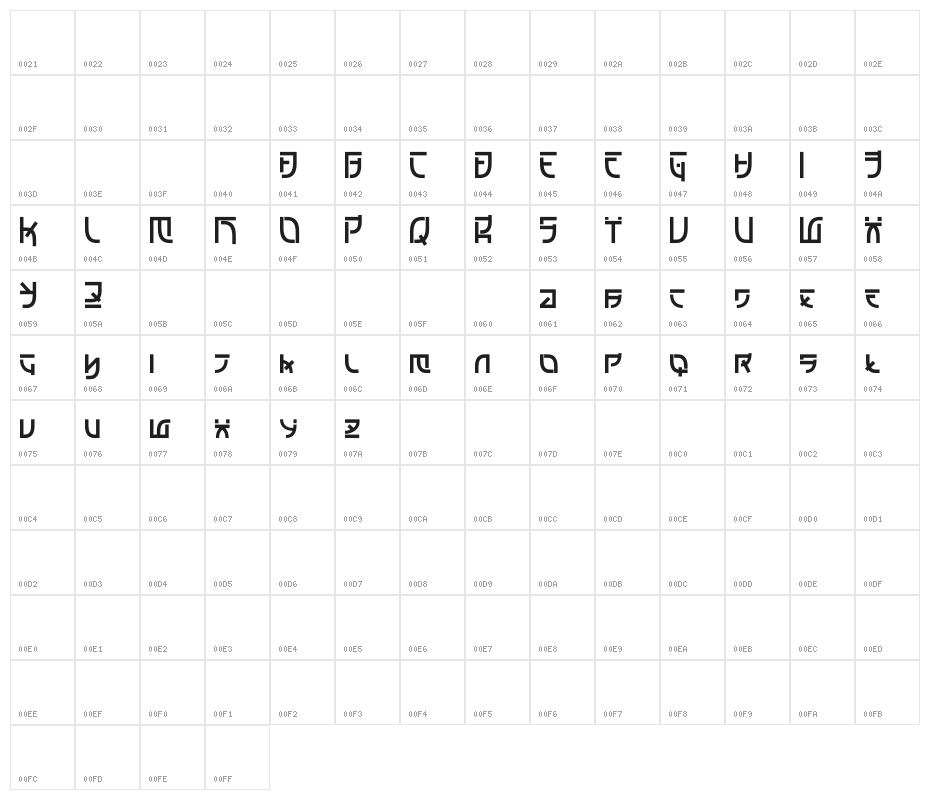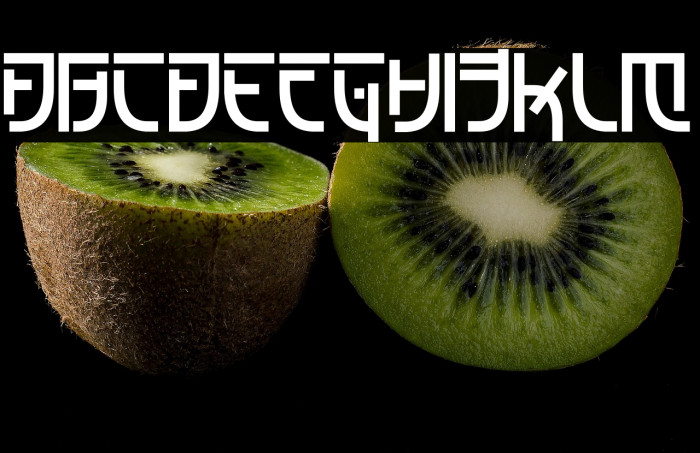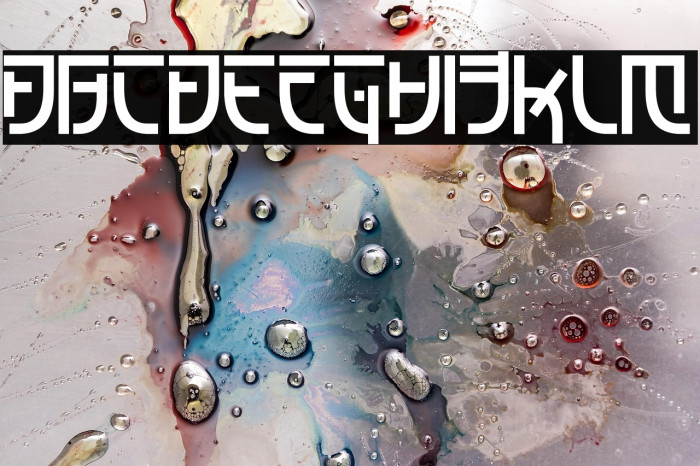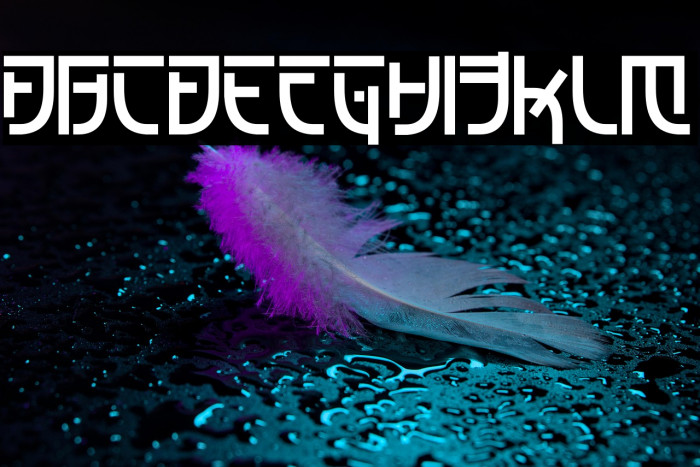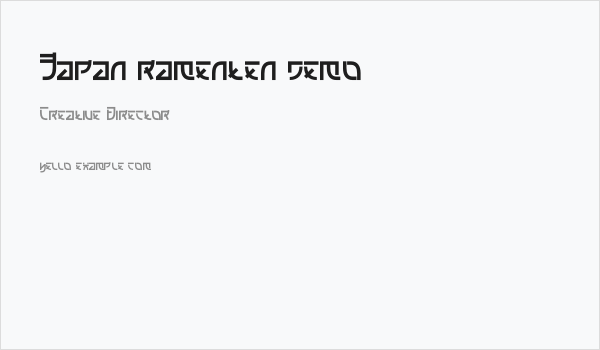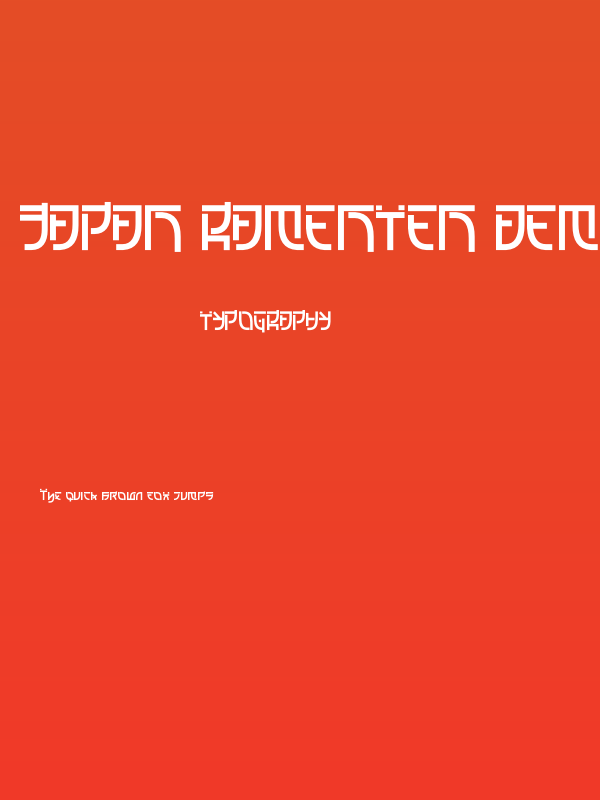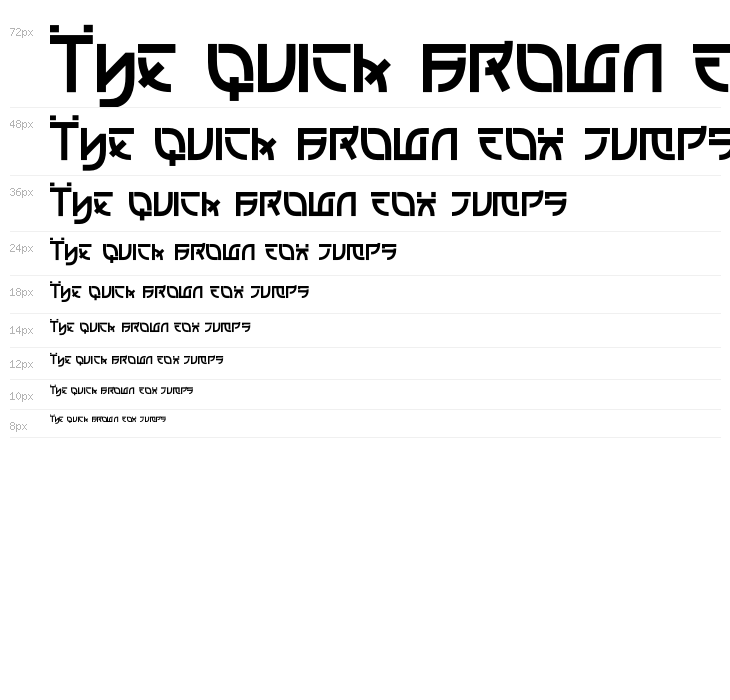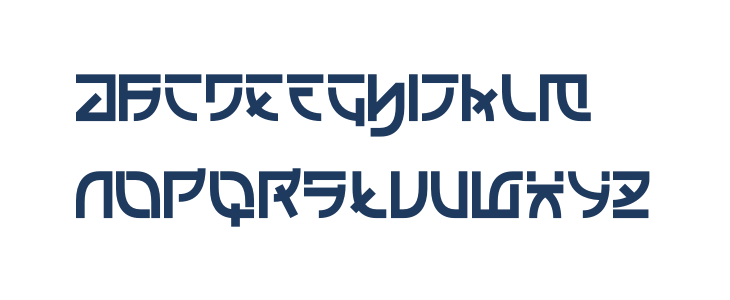
Japan ramenten demo Font
Japan ramenten demo Description
This font features a bold, geometric design with a distinctly modern and futuristic aesthetic. The characters are constructed with thick, angular strokes that create a sense of symmetry and balance. The use of sharp angles and straight lines gives it a mechanical feel, while the consistent stroke width across all characters adds to its uniformity. The font's unique style is reminiscent of digital or sci-fi themes, making it stand out in any design. It is highly legible despite its unconventional shapes, and the spacing between characters is tight, enhancing its compact appearance.
| Use Case | Logos, Headlines |
| Proposed Projects | Ideal for tech-related branding, sci-fi themed posters, video game titles, and futuristic design projects. |